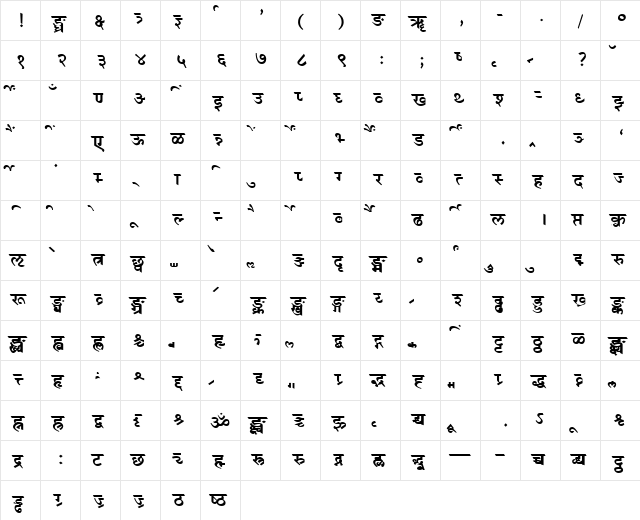
AkrutiDevPataliputra Bold
Design Context for AkrutiDevPataliputra Typeface
AkrutiDevPataliputra offers clean, dependable letterforms without strong stylistic allegiance, making it a practical choice for designers who need flexibility. The heavy weight commands attention and anchors typographic hierarchies.